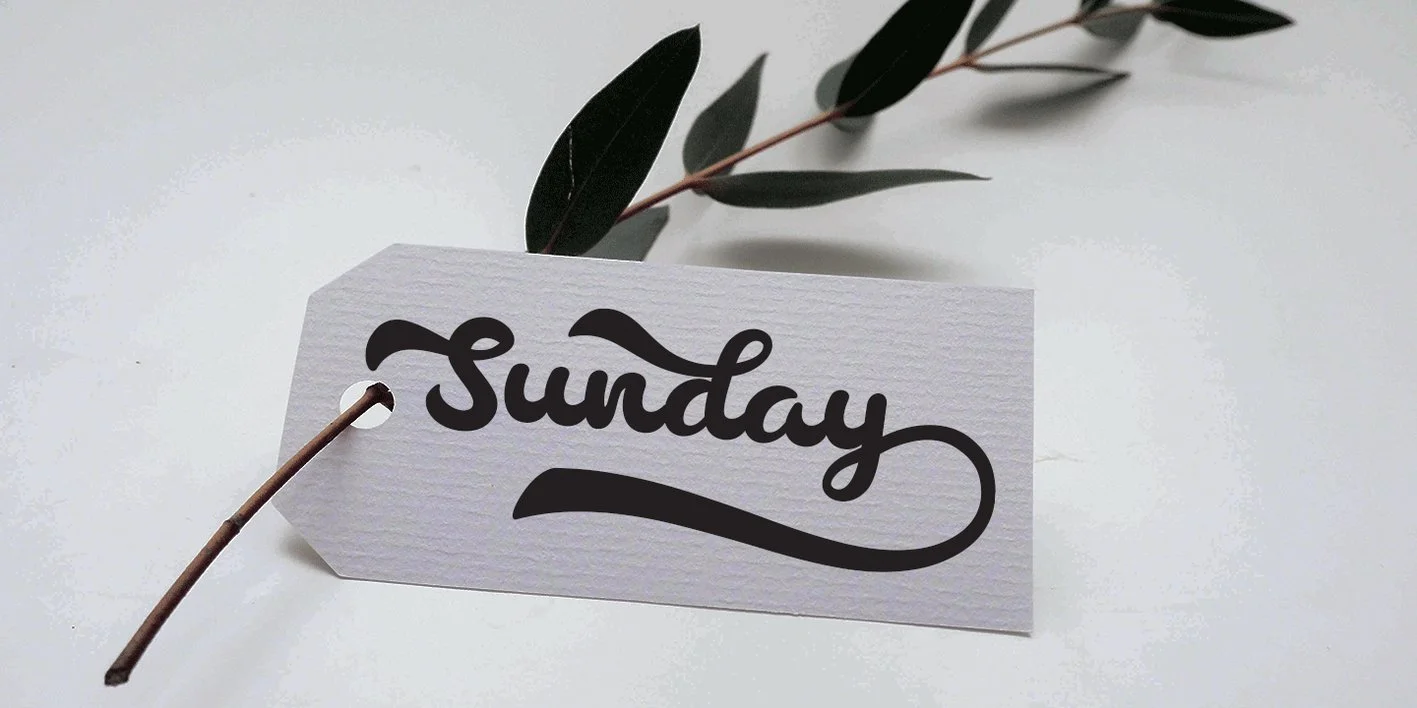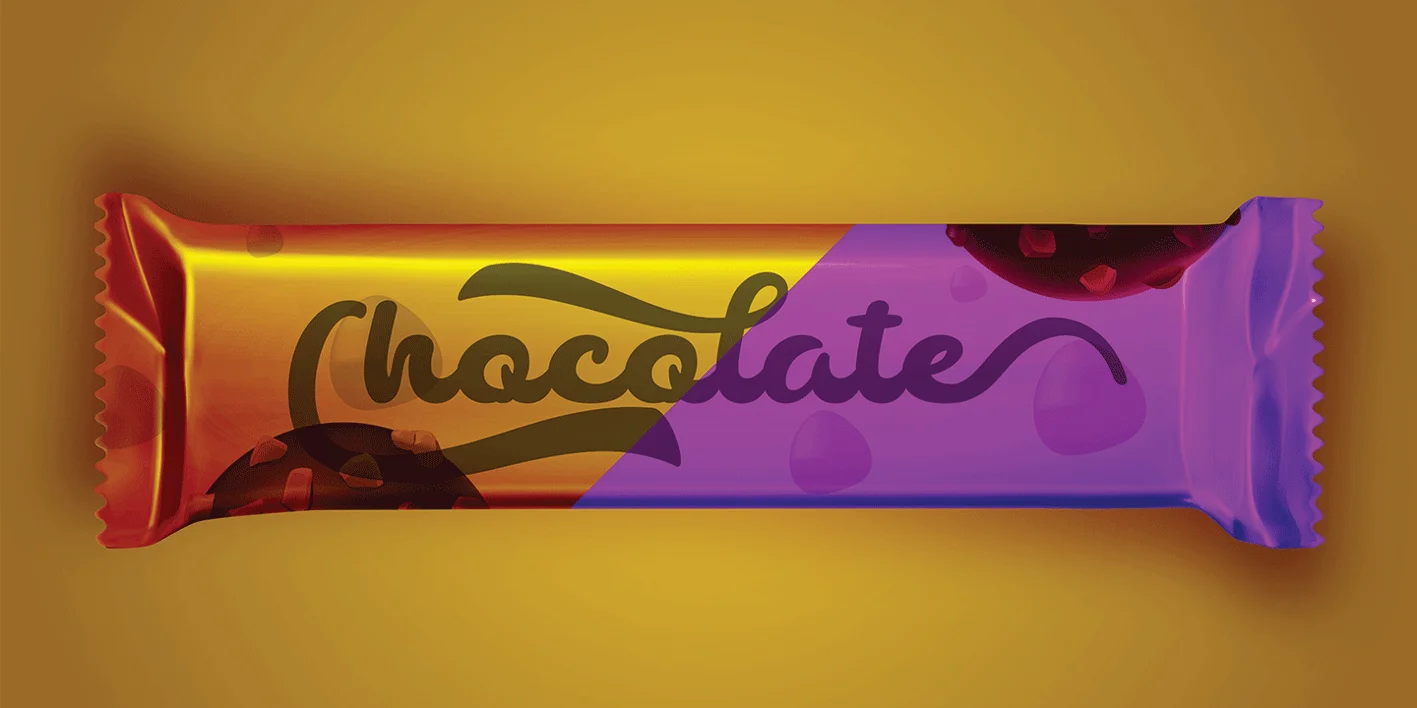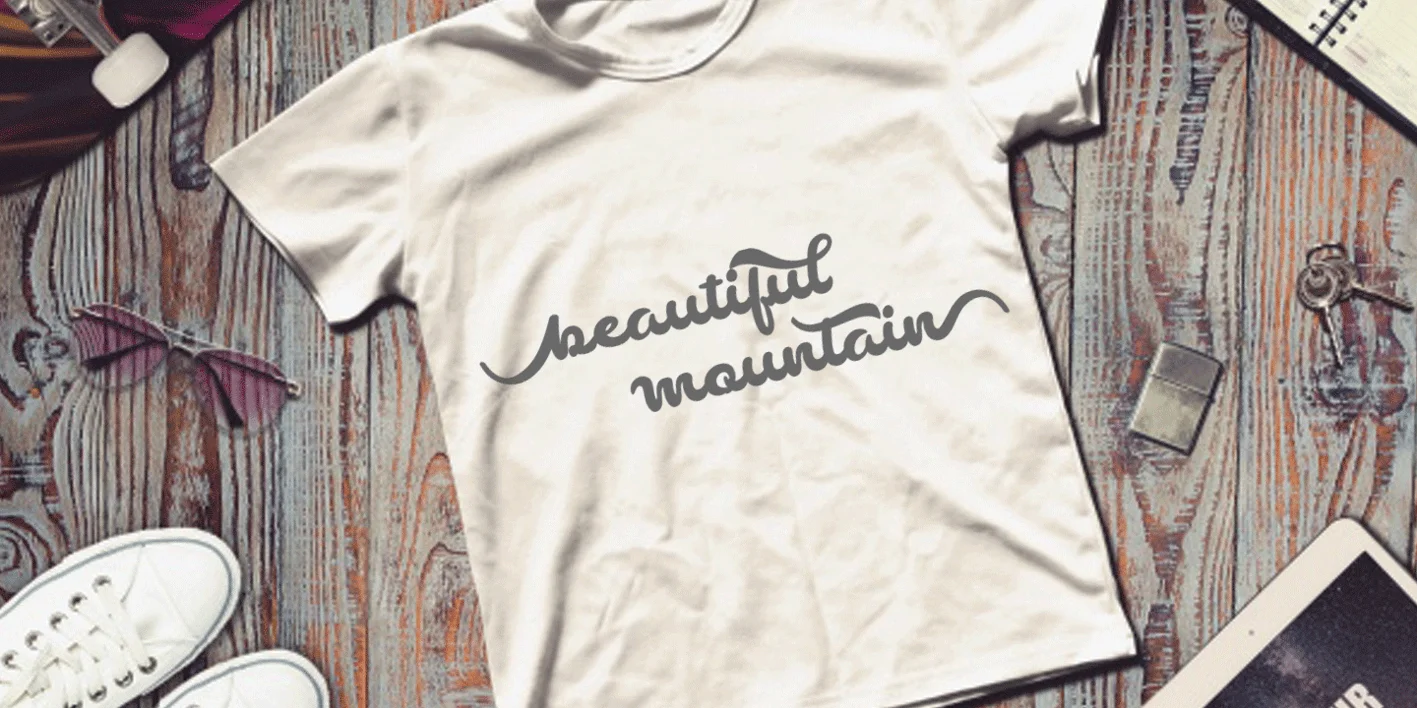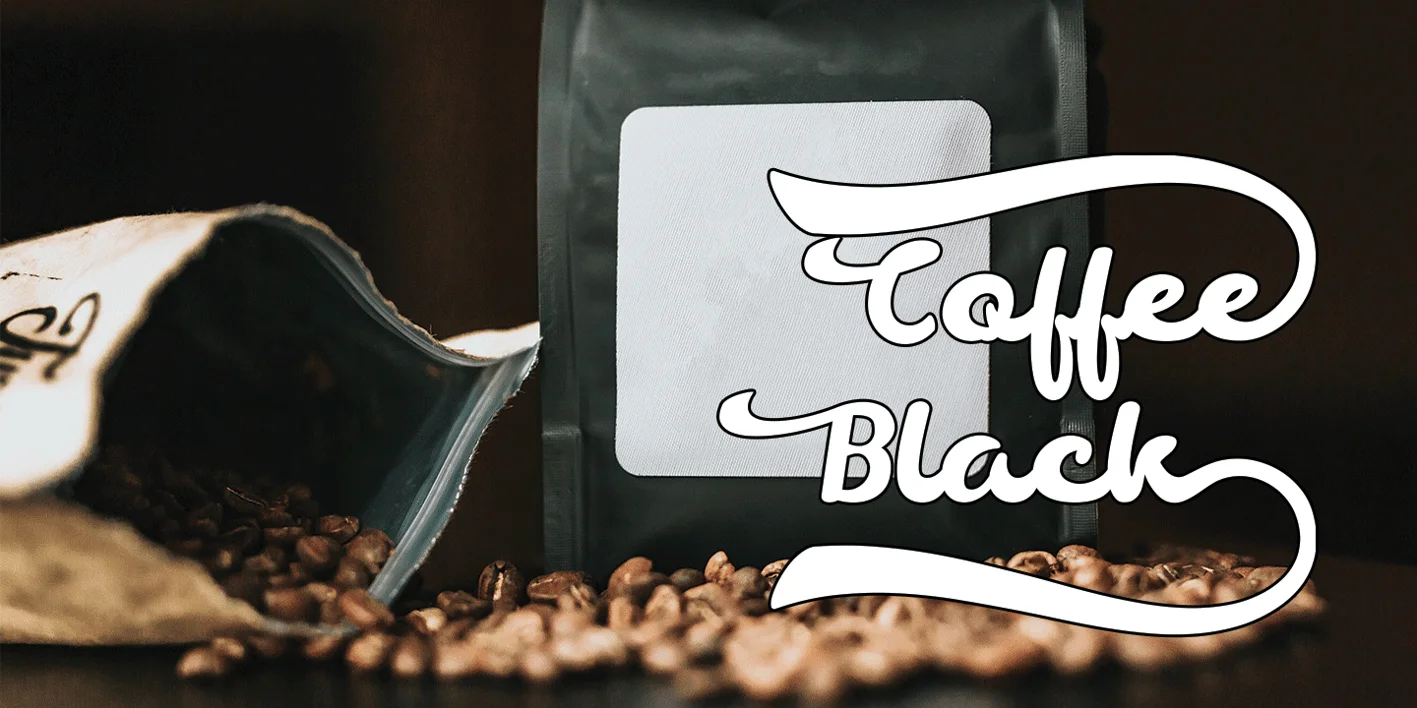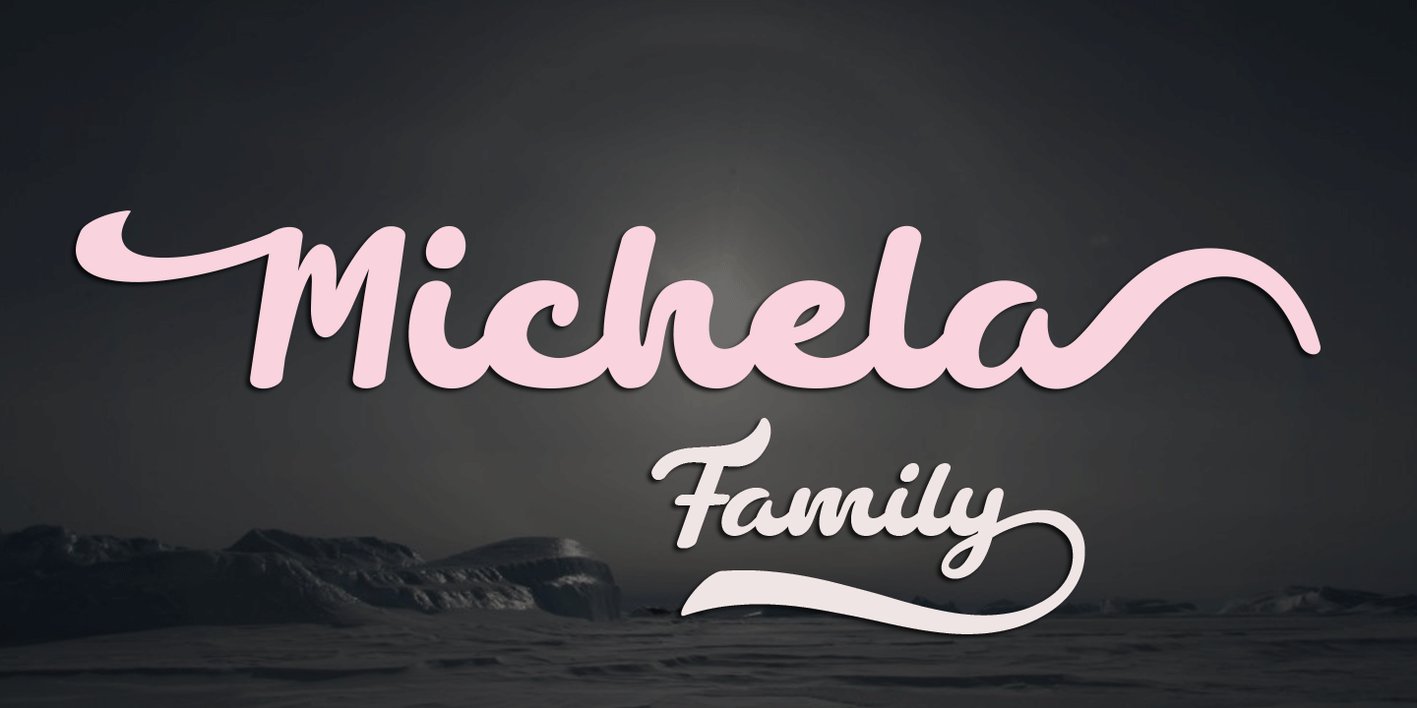
Michela Font
There is a particular satisfaction in finding a typeface that delivers strong typographic hierarchy support without compromise. Michela consistently provides it. The typeface brings an elegant, calligraphic sensibility to a broad range of creative disciplines, with versatility across print and screen contexts that holds up whether the work is print-first or screen-first.
In practice, Michela proves particularly effective for feminine branding, annual reports, fashion editorials, poster creation, beauty packaging. Designers reaching for it find that the type decisions feel resolved rather than laboured — a useful quality when client timelines are tight.
The range of applications extends to environmental graphics, fragrance labels, signage systems, web design. That breadth is deliberate: the proportions and spacing were stress-tested across a wide range of mock briefs before the typeface was finalised.
UX designers establishing typographic systems for digital products find Michela a reliable choice for projects that demand both personality and restraint. The design avoids the self-conscious quirkiness that dates quickly, settling instead for considered distinctiveness that holds up over time.